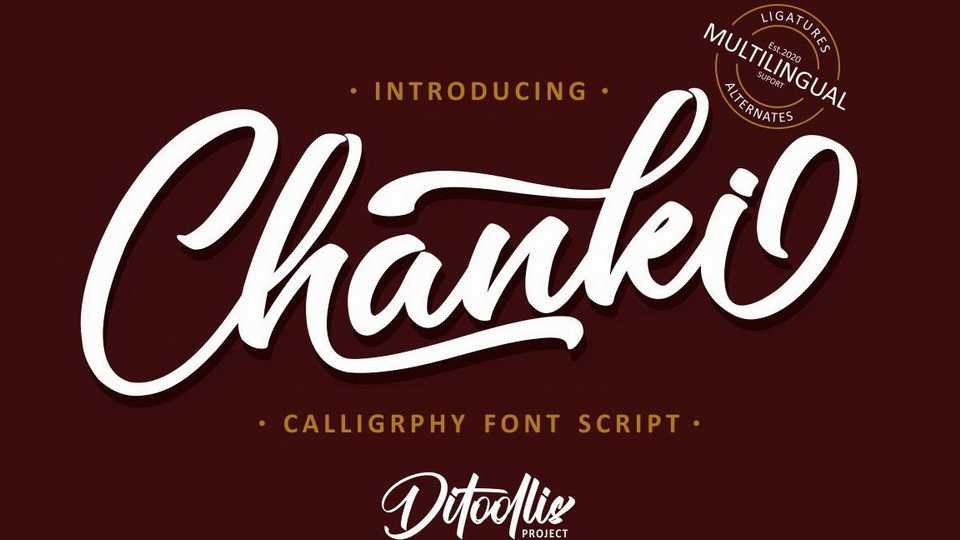
Download Chanki font, a strong and bold script, carefully crafted with hand lettering. Chanki font has unique style and it’s perfect for branding and other design needs, like for quotes, merchandise, packaging, business card and many other project.
Designer: Ditoollis Project